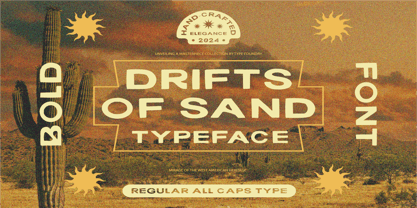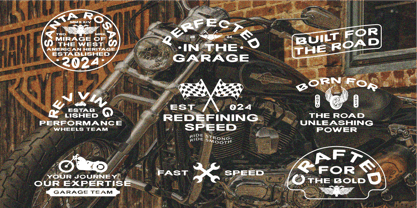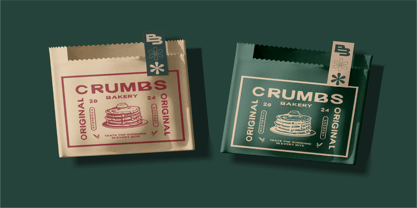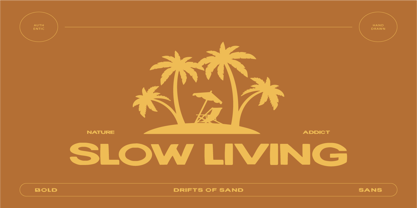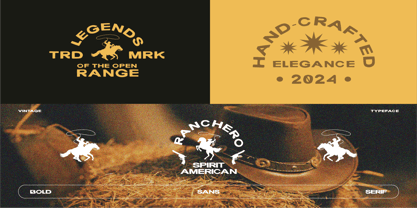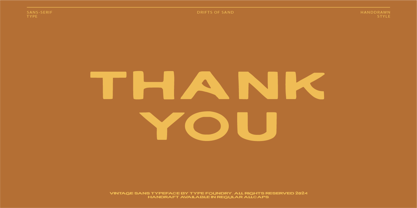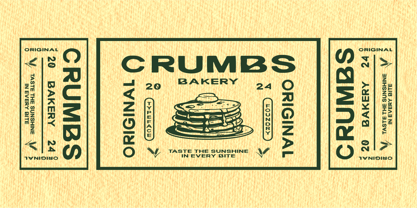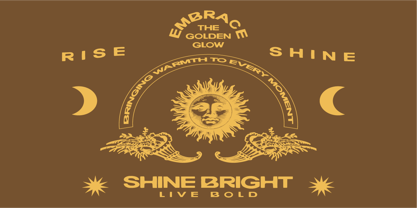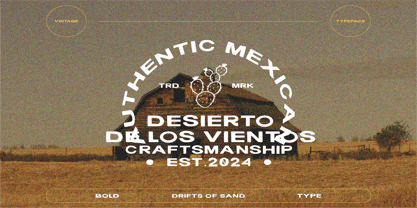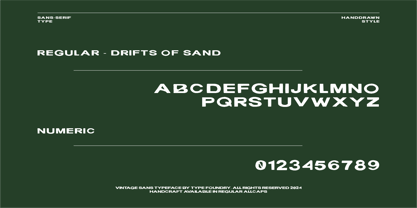
Drifts Of Sand
Drifts of Sand This font showcases a sans serif style with an authentic hand-drawn touch, bringing a personal and organic feel to each letter. Every character is crafted with subtle, slightly rough strokes, creating a casual aesthetic that remains clear and highly readable. Its defining feature is the intentional irregularity in line shapes, giving it a unique and warm impression, much like natural handwriting.